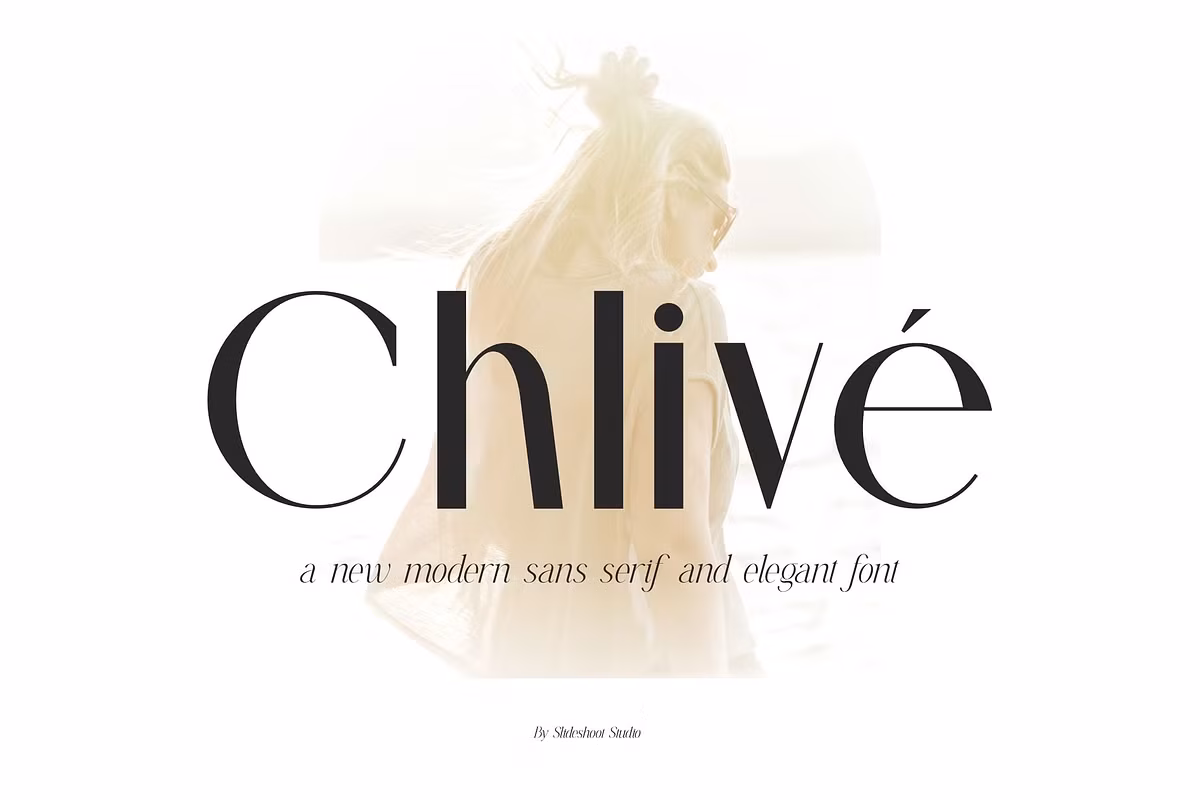
Chlive || Modern Sans Serif Font Free Download
Please note that you must purchase this font for commercial use. You can download Chlive || Modern Sans Serif Font for free, strictly for personal testing purposes only. Chlive is a sleek, contemporary sans-serif typeface designed for modern and clean aesthetics. With its straight lines, geometric structure, and minimalistic appeal, Chlive Font Free Download is perfect for corporate branding, website design, editorial layouts, social media graphics, and product packaging.
This font is ideal for creating sharp, professional designs with a modern touch. Chlive includes uppercase and lowercase letters, numerals, punctuation, and multilingual support, making it a versatile choice for a wide range of projects.
Whether you're creating a minimalist brand identity or designing professional marketing materials, Chlive adds clarity, elegance, and modern sophistication to your typography.